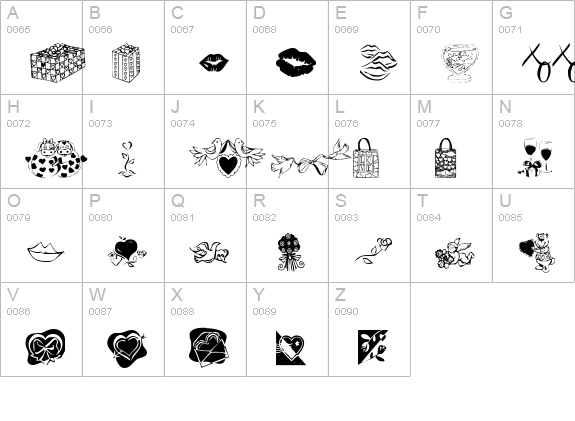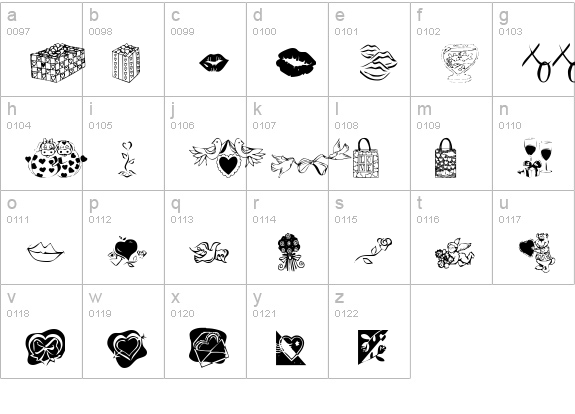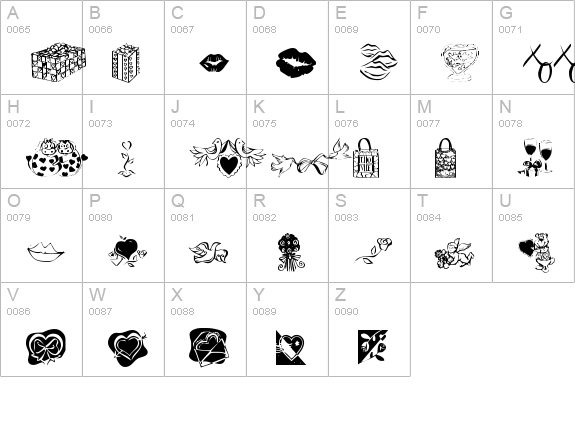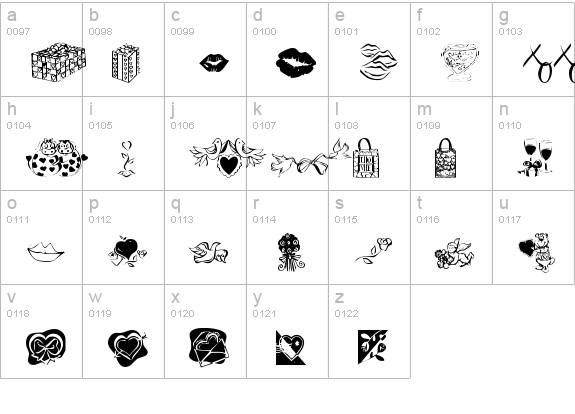
KR Be Mine Forever Font Details
KR Be Mine Forever font is a charming and elegant typeface that exudes romance and beauty. With its delicate curves and stylish letterforms, this font is perfect for adding a touch of love to any project. The flowing strokes and unique details of KR Be Mine Forever make it stand out and capture attention. Best of all, this exquisite font is available for free download at FontsMarket.com. Whether you are creating wedding invitations, love notes, or any other romantic design, KR Be Mine Forever is the perfect choice to convey your message with style and grace. Download this lovely font today and let your creativity shine with its timeless beauty.